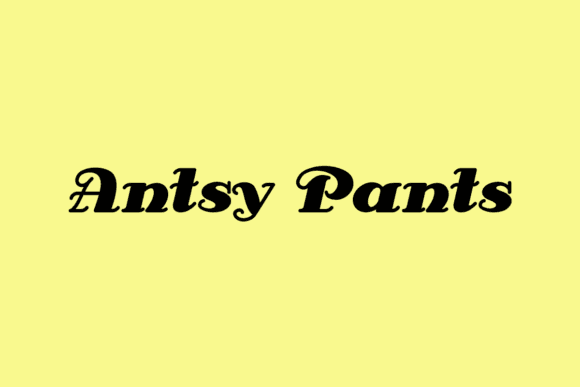
Antsy Pants Font for Crafting, Logos and Print Projects
Antsy Pants Font is a creative font file developed for crafting workflows, logo building, and print-based visual design. As a font entity, it offers a whimsical aesthetic that captures attention without compromising legibility.
This typeface is ideal for custom branding, printable art, vinyl decals, and kids-themed projects. Its expressive character and smooth contours make it easy to use with Cricut, Silhouette, and graphic design software alike.
- Custom logos and branding kits
- Stickers, labels, and printable quotes
- Apparel graphics and tote designs
- Wall art, posters, and signage
- Party decor, cards, and invitations
- Fun, expressive design style
- Ideal for child-friendly and niche branding
| Design Style | Playful and quirky | Standard serif | Neutral sans-serif |